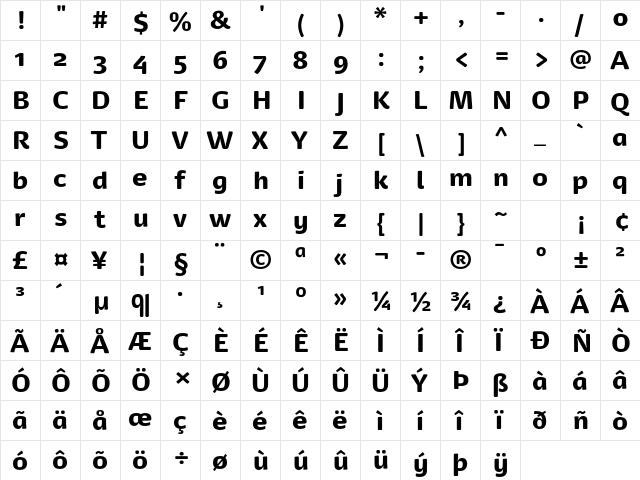
Dancer Pro Black
| Foundry | Morten Rostgaard Olsen |
| Designer | Morten Rostgaard Olsen |
Design Context for Dancer Pro Typeface
Dancer Pro takes a measured approach to typography — its balanced proportions and neutral character make it a reliable workhorse for both digital and print work.